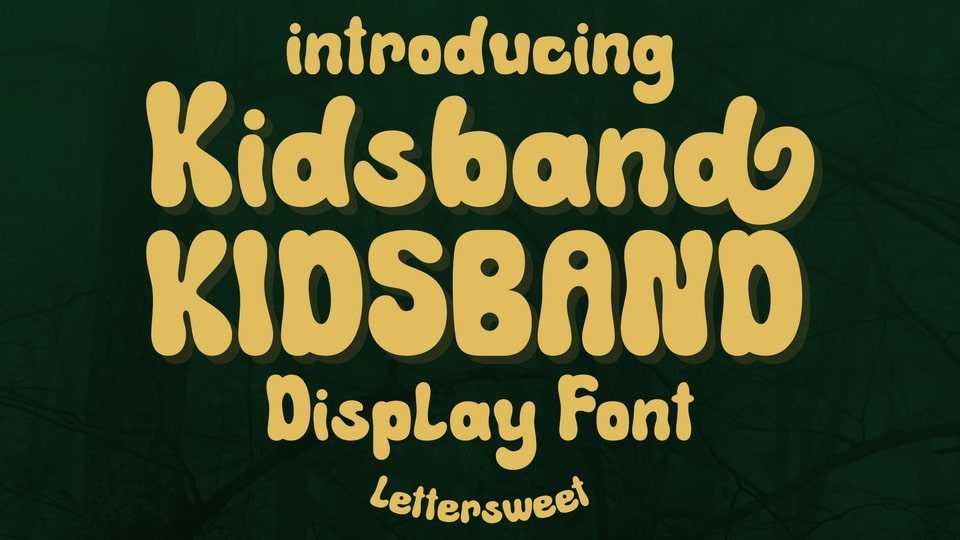
Download Kidsband font, a cute, friendly, and fun display typeface. Whether you’re using it for crafts, digital design, presentations, or making greeting cards, this font has the potential to become your favorite go-to font, no matter the occasion!